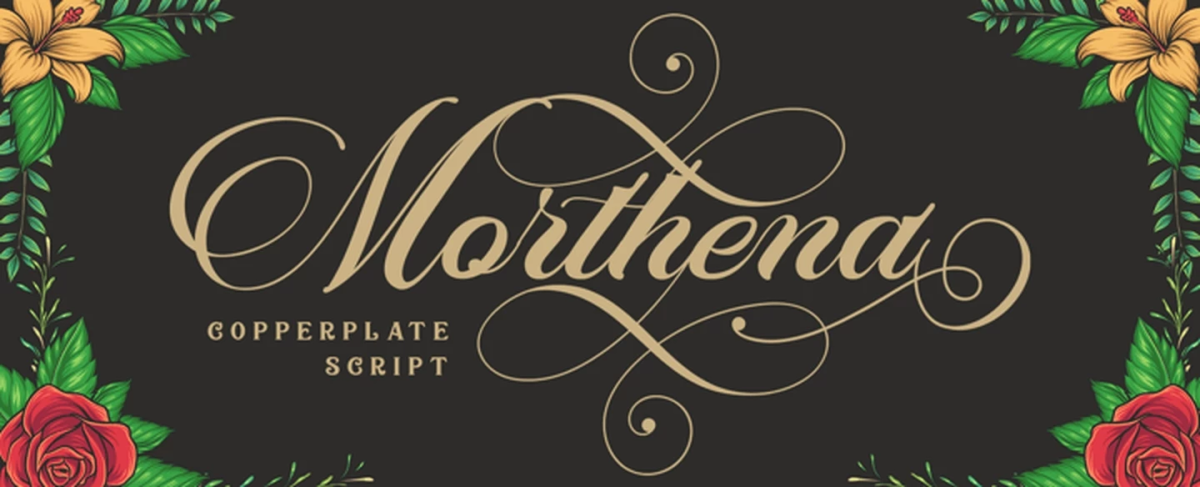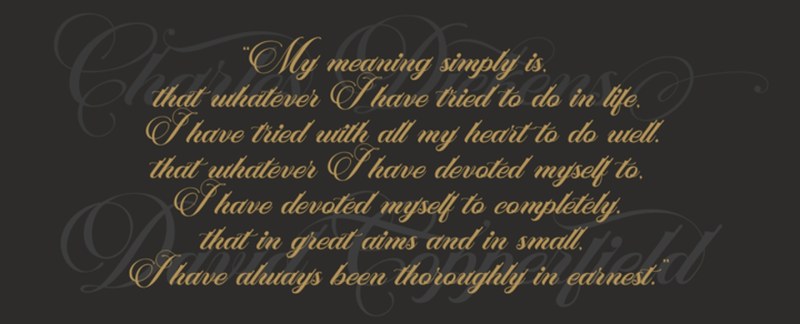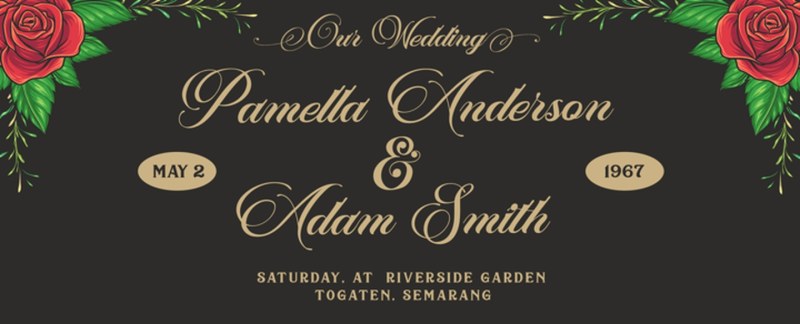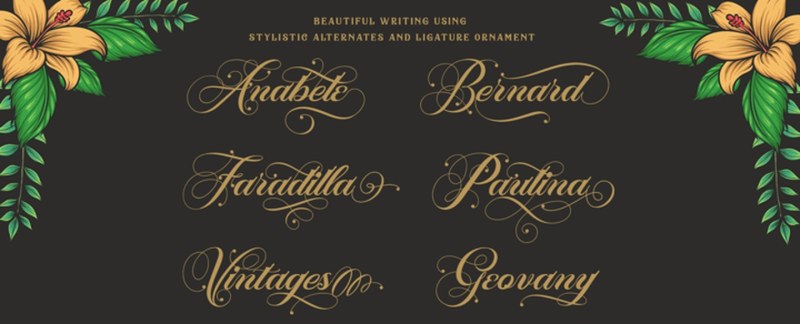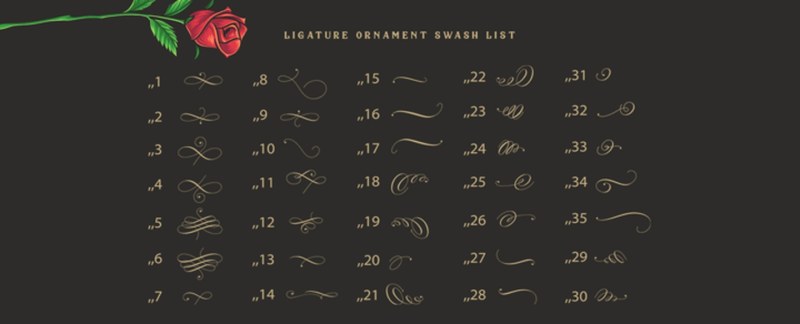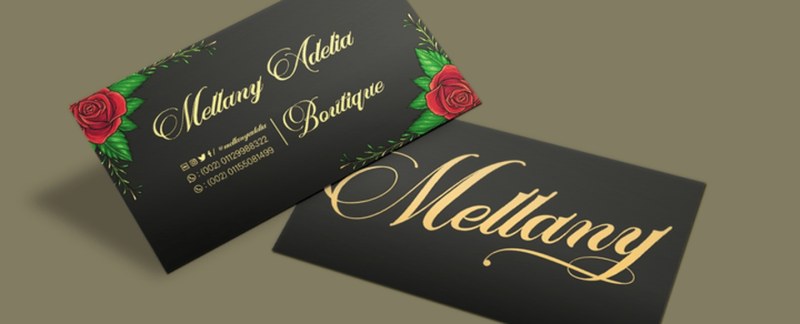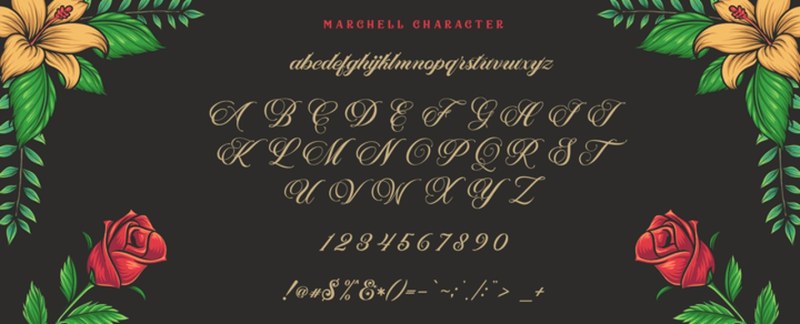
Morthena Font
Morthena Script this is a copperplate style font that looks classic, vintage and retro but still looks elegant, luxurious and georgeous. Morthena is a little different from some existing fonts, I made a slightly different shape and added an alternative character with a more decorative shape as well I added 35 different swashes that you can use easily.
Morthena Font is a Script And Handwritten font that brings a professional and versatile look to your projects. Morthena Script this is a copperplate style font that looks classic, vintage and retro but still looks elegant, luxurious and georgeous.